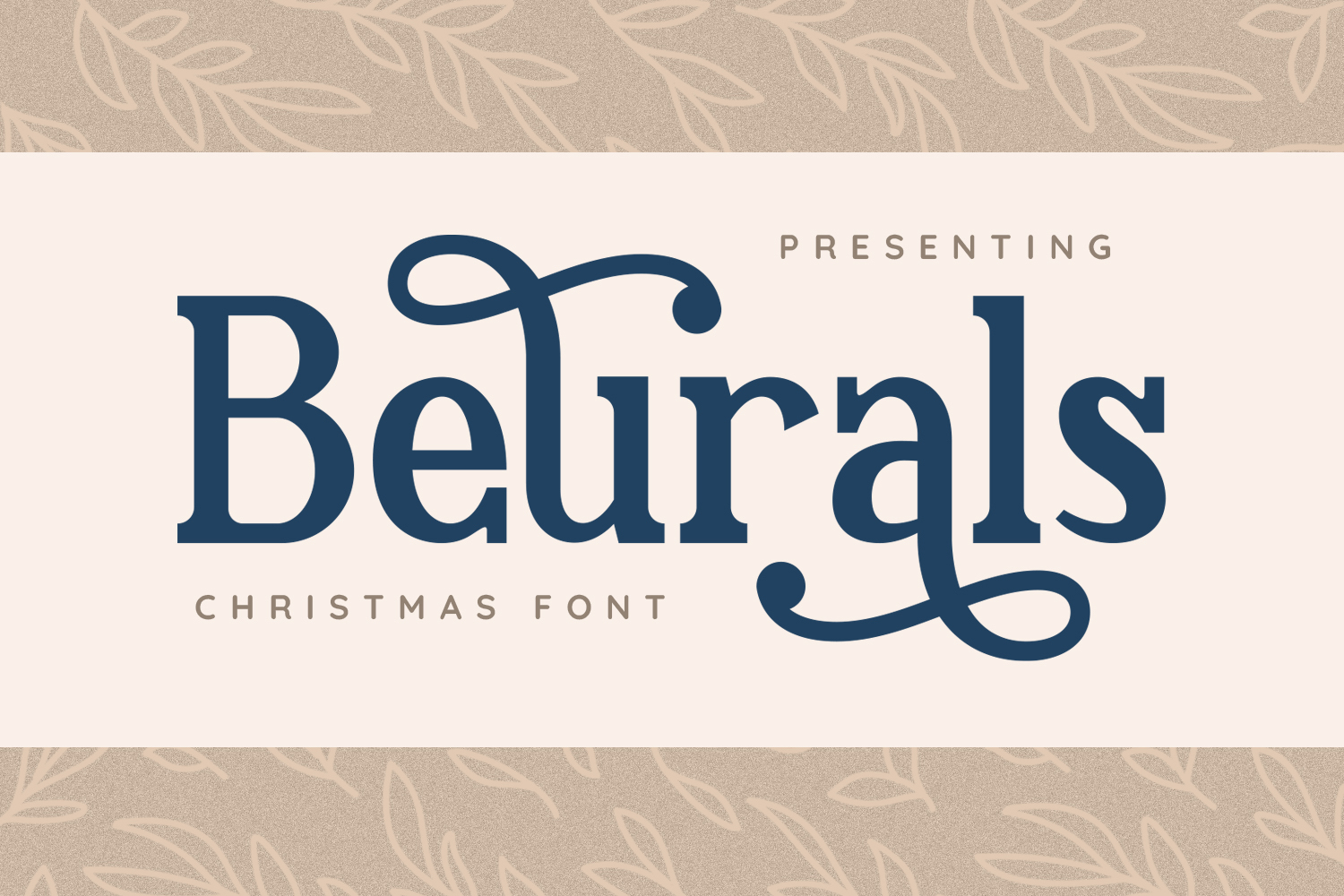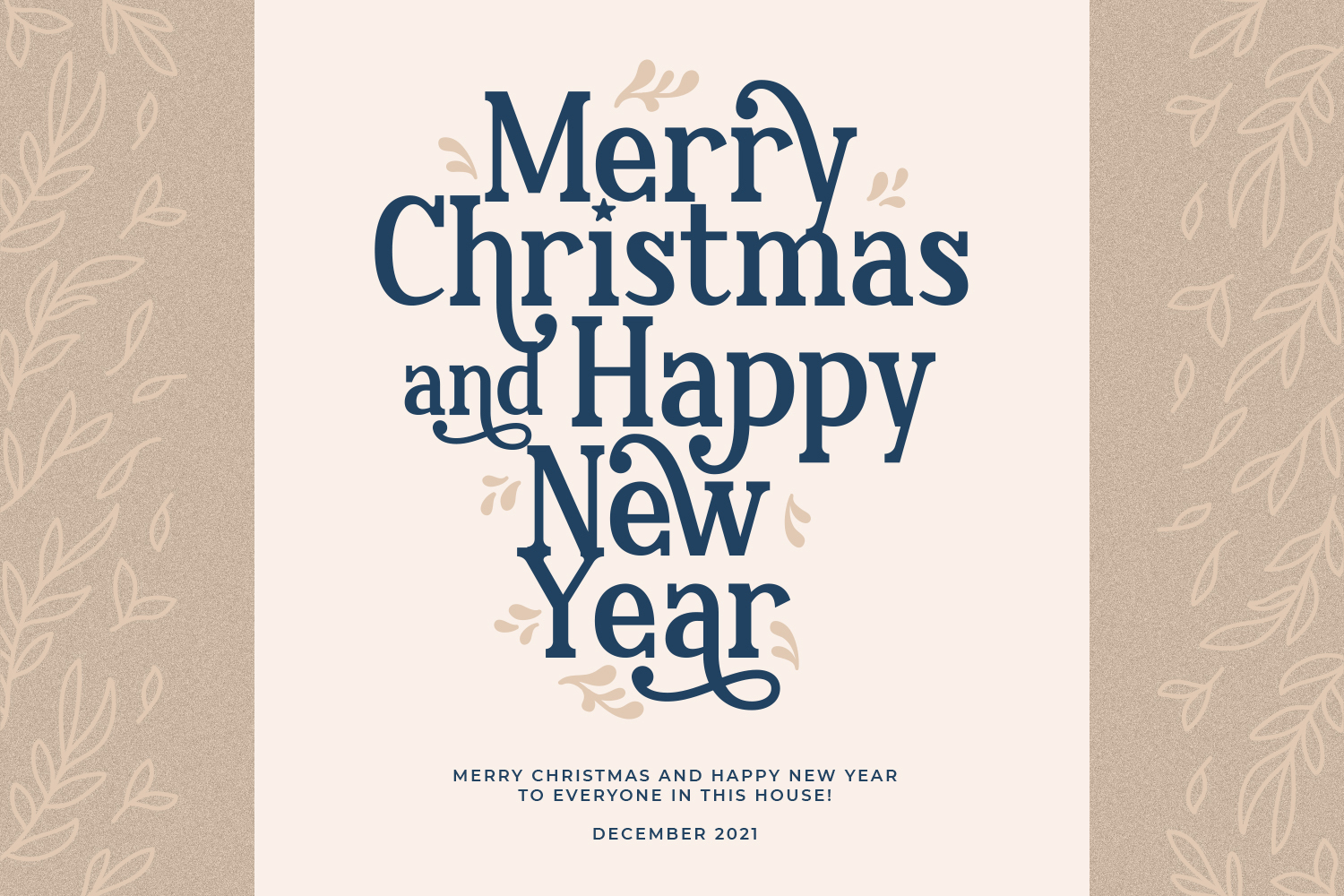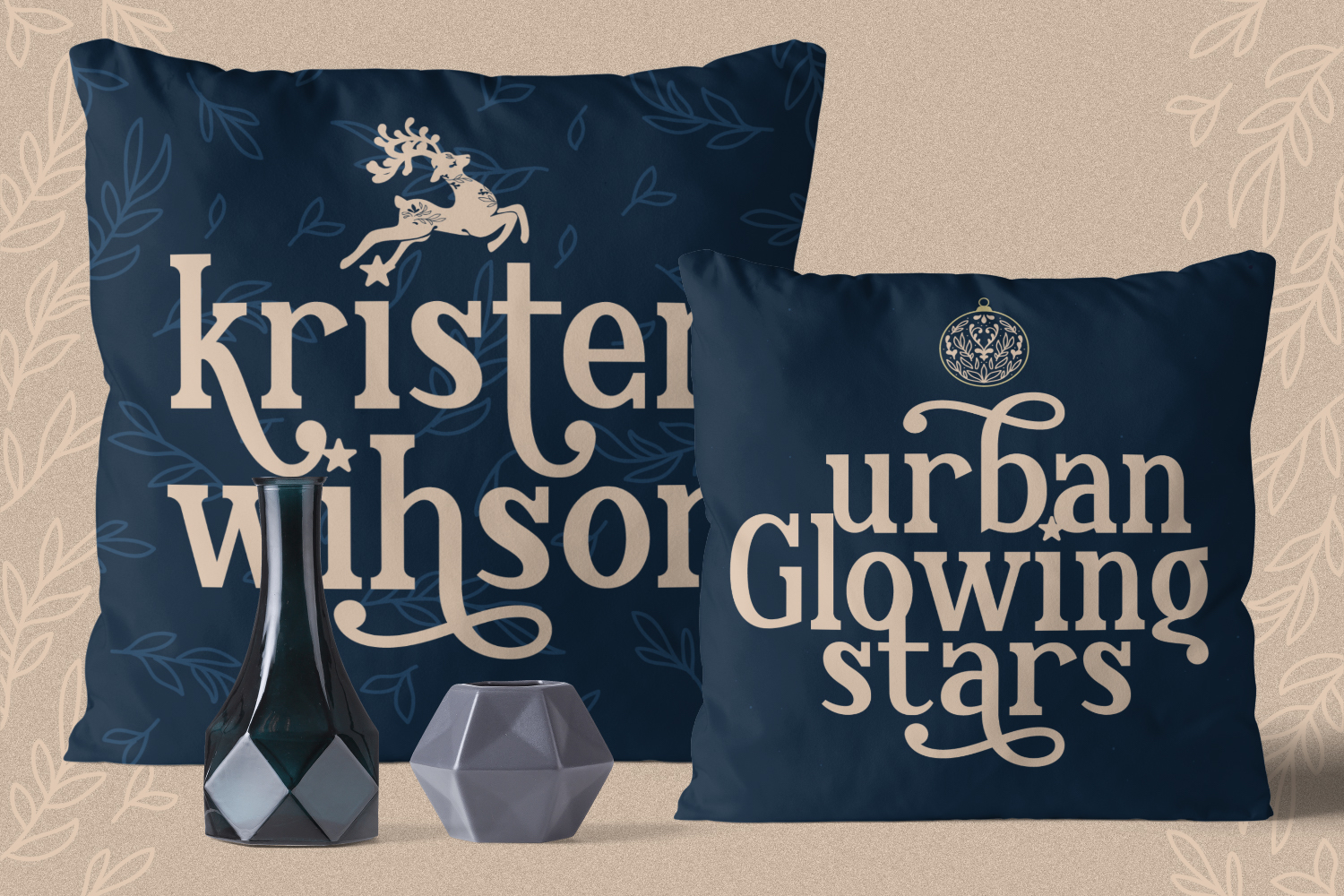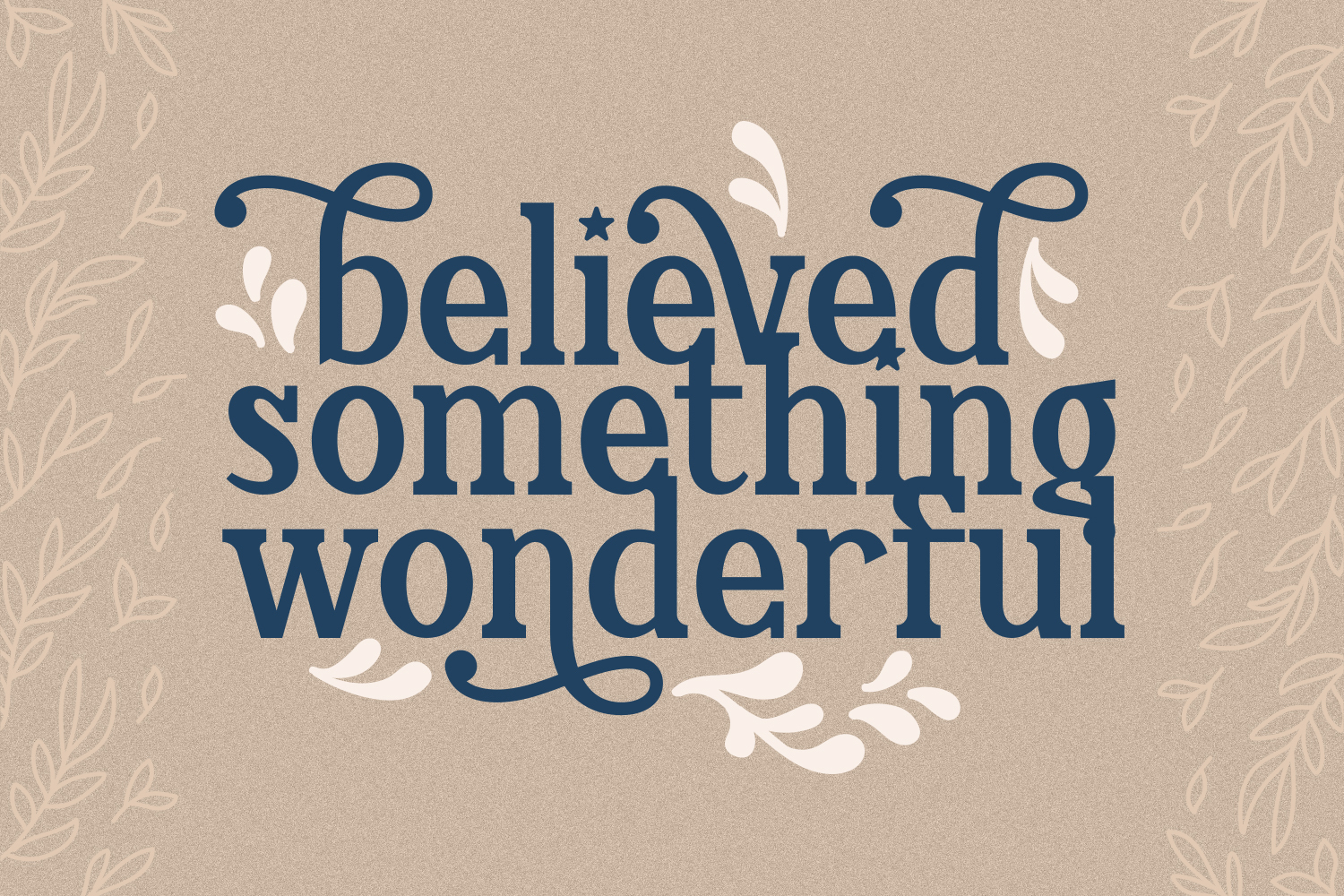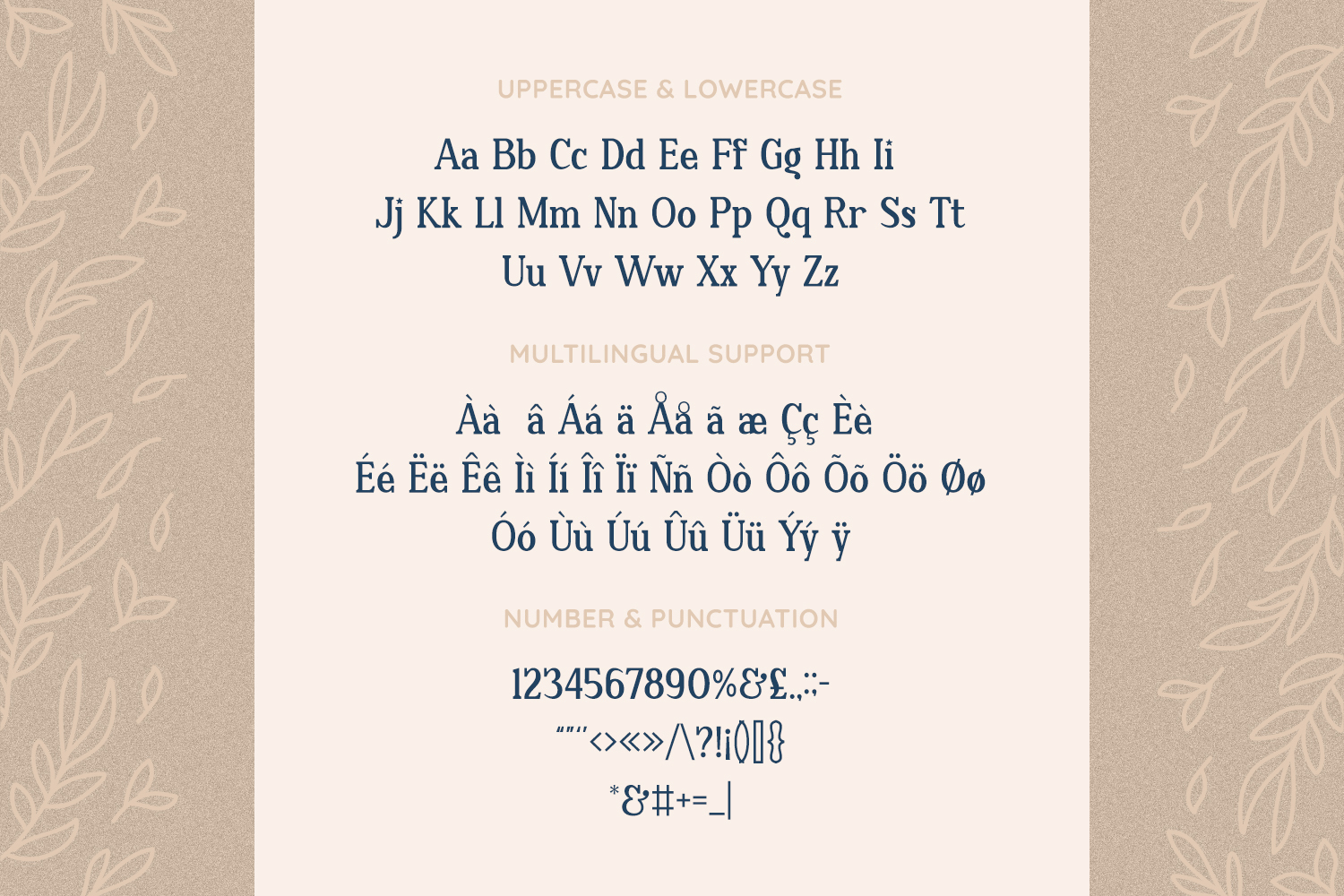
Beurals is a refined and elegant serif typeface that captures the warmth and joy of the holiday season. Its unique swashes and flowing letterforms add a touch of charm and sophistication, making it perfect for Christmas cards, festive branding, invitations, and seasonal packaging. With a combination of clean structure and playful alternates, Beurals creates a delightful balance between tradition and creativity.
Featuring complete uppercase and lowercase sets, multilingual support, punctuation, and stylish ligatures, this font is crafted to elevate any Christmas-themed design. Whether used on cozy gifts, social media posts, or winter decor, Beurals brings a graceful personality that instantly evokes festive cheer and timeless beauty.
Beurals